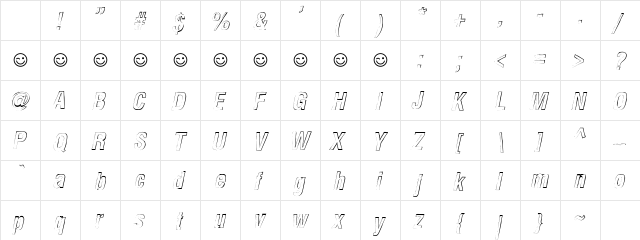
Complete Newside FP Outline Alternate Italic glyph index. Displaying only characters natively supported by Newside FP Outline Alternate Italic font.
Newside FP Outline Alternate is built around its visual character rather than neutral utility - its distinctive forms are designed to make an impression at display sizes. The slanted form adds forward momentum and visual energy.
Font Pairing: Pair with a clean neutral sans-serif for body copy to let Newside FP Outline Alternate's character lead without overwhelming the composition.
Pro Tip: Use Newside FP Outline Alternate exclusively at display sizes - it was designed to be seen, not read at length. Let a neutral companion handle body copy.